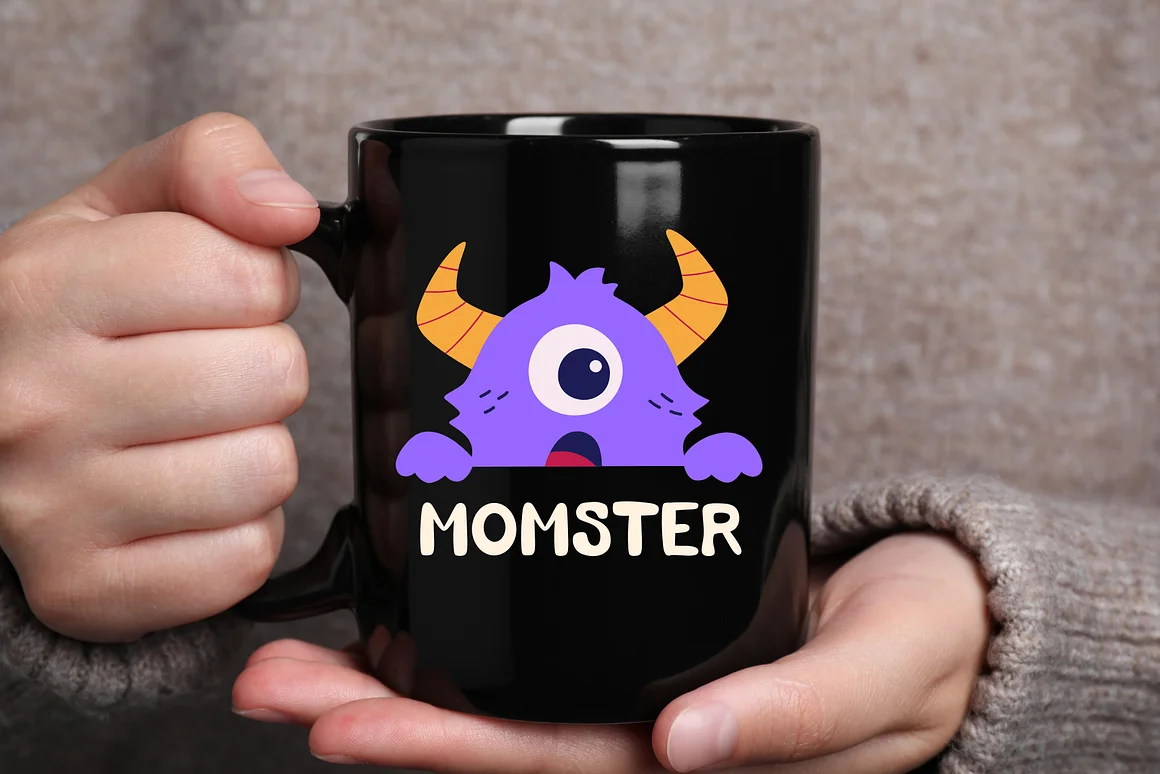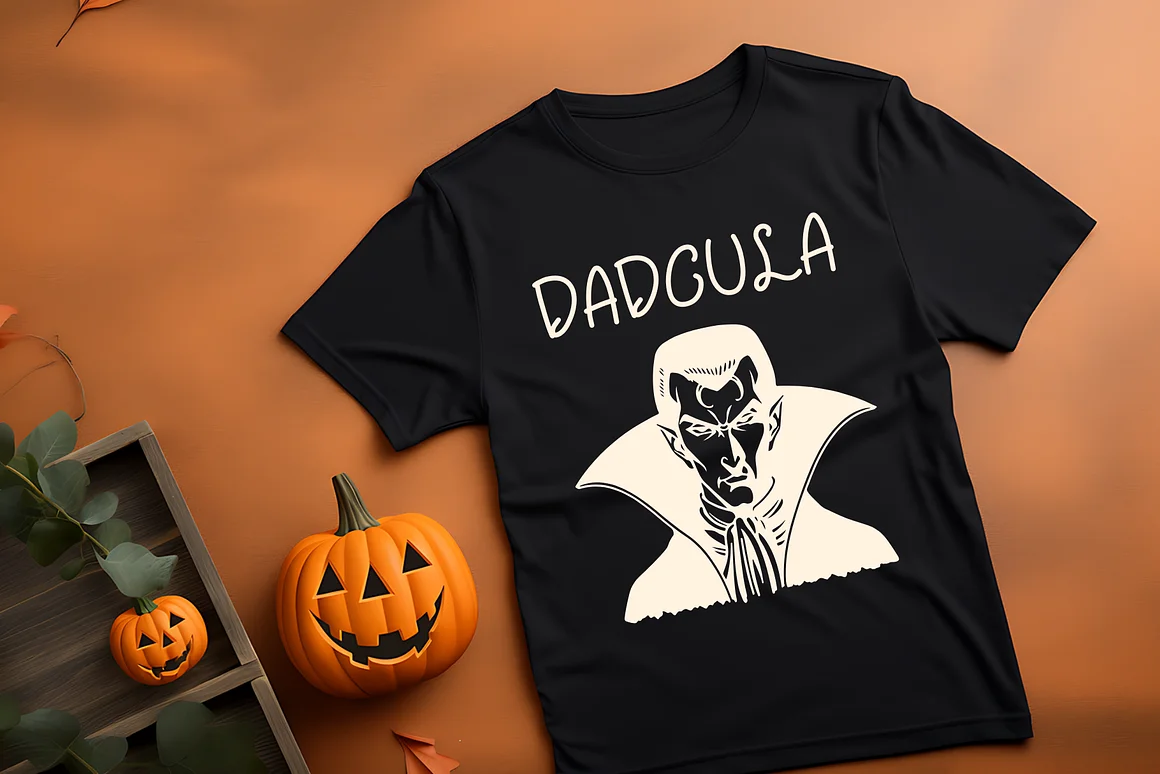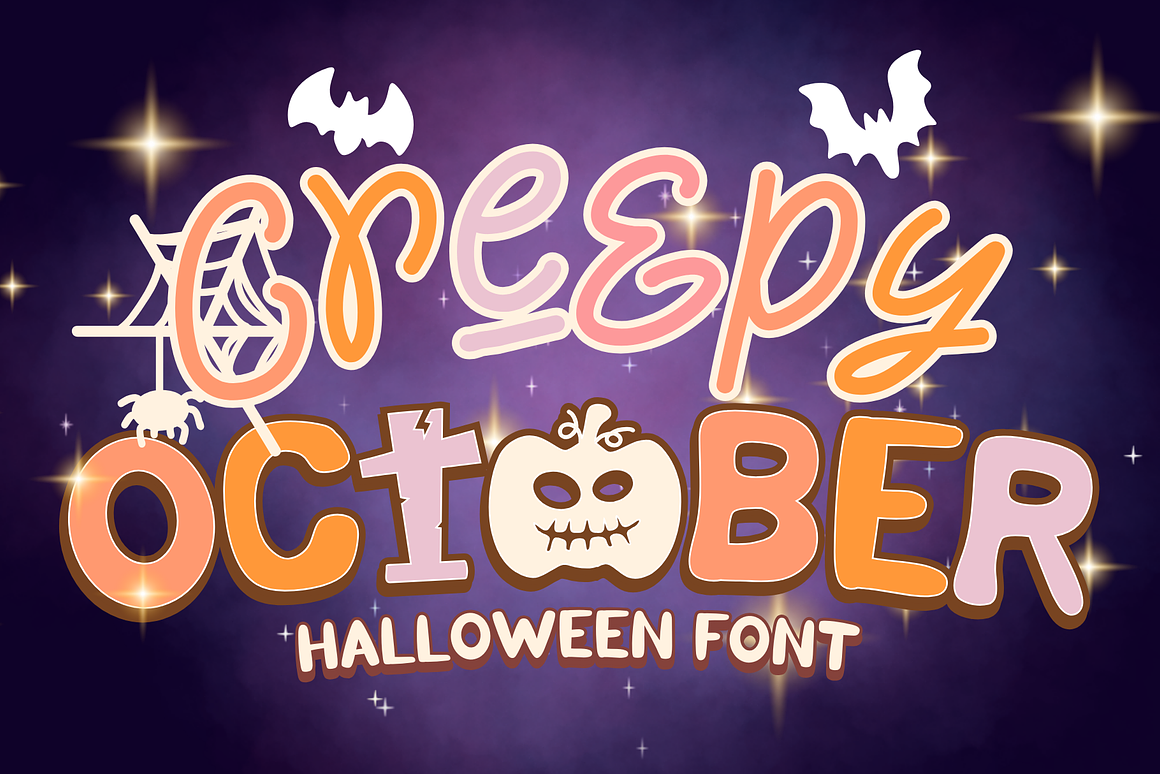
Creepy October is Halloween Font
This atmospheric font is perfect for October horror events, autumn spooky celebrations, fall seasonal decorations, month-long Halloween festivals, October horror marketing, autumn fear campaigns, seasonal terror branding, October countdown displays, fall horror attractions, and spine-chillingly seasonal Halloween messaging materials.
Creepy October is Halloween Font is exciting because it captures the gradually building atmosphere of dread and supernatural anticipation that transforms the entire month of October into a prolonged celebration of fear and fascination with the macabre. The font features seasonally twisted characters with autumn proportions and October-inspired details that evoke the way ordinary fall days become increasingly unsettling as Halloween approaches, incorporating leaf-like decay and seasonal flourishes that create typography as atmospheric and ominous as the lengthening shadows and cooling air that make October the most supernaturally charged month of the year. Each letter showcases the slow-building tension and creeping unease that makes October so uniquely terrifying, with autumn curves and seasonal accents that transform ordinary text into manifestations of monthly terror that capture the gradual transformation of peaceful fall into the most spine-tingling and supernaturally active time of the entire calendar year.
The Creepy October is Halloween Font family includes seasonal style variations: Regular, Bold, Light, Autumn, and Harvest versions. The collection features special October elements including falling leaf accents, seasonal decay details, autumn flourishes, and monthly ornaments. Additional components include October borders, seasonal frames, autumn decorations, and monthly ornamental designs that enhance the font's creepy October Halloween appeal and create cohesive atmospheric autumn themes.
Seasonal event planners and October horror enthusiasts will find Creepy October is Halloween Font to be a perfect resource for creating authentically atmospheric Halloween communications that celebrate the unique terror and seasonal transformation that makes October the most supernaturally significant month of the year. This seasonally crafted font transforms ordinary Halloween messaging into October expressions that resonate with audiences who appreciate the gradual building of supernatural tension and atmospheric dread that makes the entire month of October such a thrilling and spine-chilling prelude to Halloween night.
The typeface includes comprehensive character support with seasonal styling that maintains excellent readability while conveying the atmospheric terror and October ambiance of creepy seasonal Halloween celebrations. The font's autumn-inspired design ensures atmospherically terrifying results across both month-long Halloween applications and seasonal horror productions.
Perfect for October festivals, seasonal horror events, autumn terror celebrations, and atmospherically spooky seasonal marketing, this font delivers seasonally terrifying visual impact that communicates atmospheric dread, October mystery, and the gradually building supernatural tension that makes the entire month of October such a deliciously spine-chilling and atmospherically terrifying journey toward Halloween night.